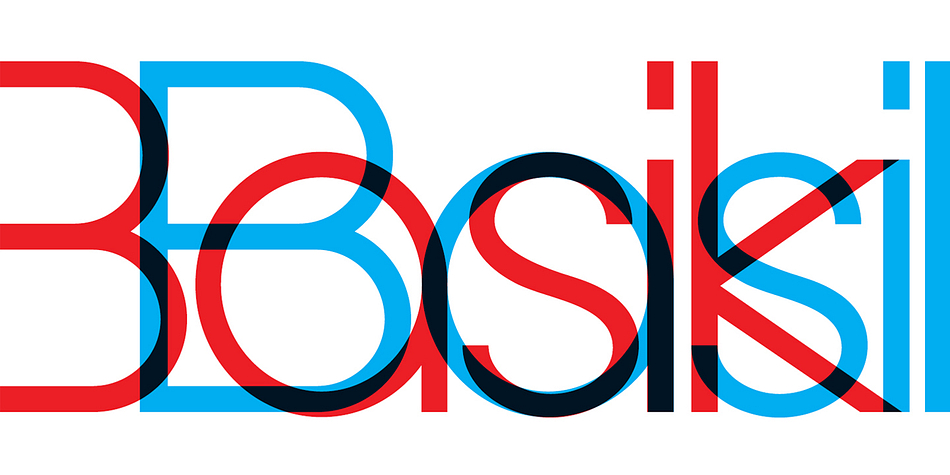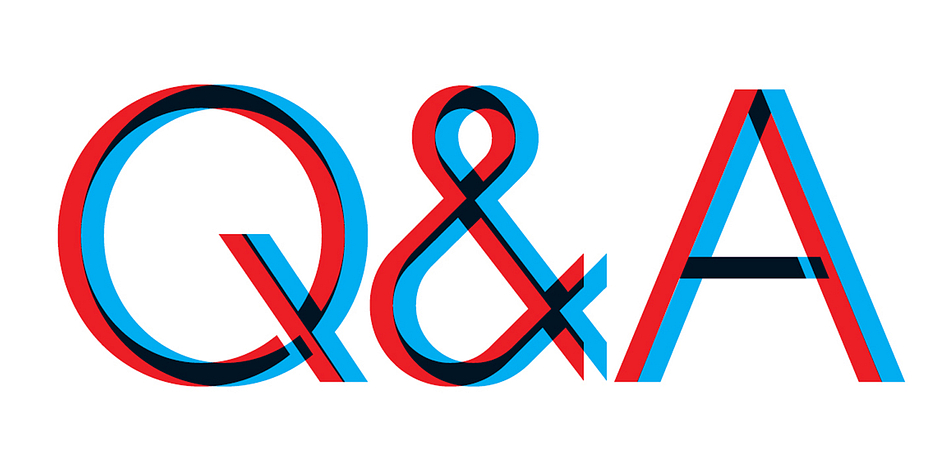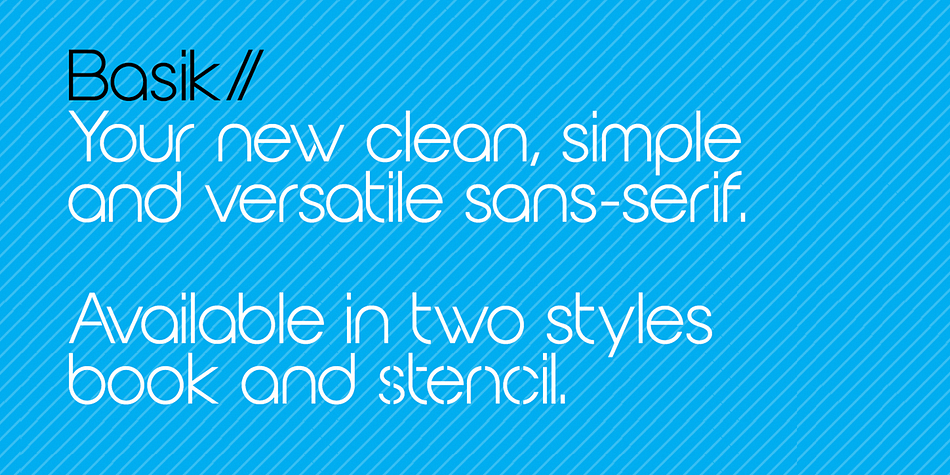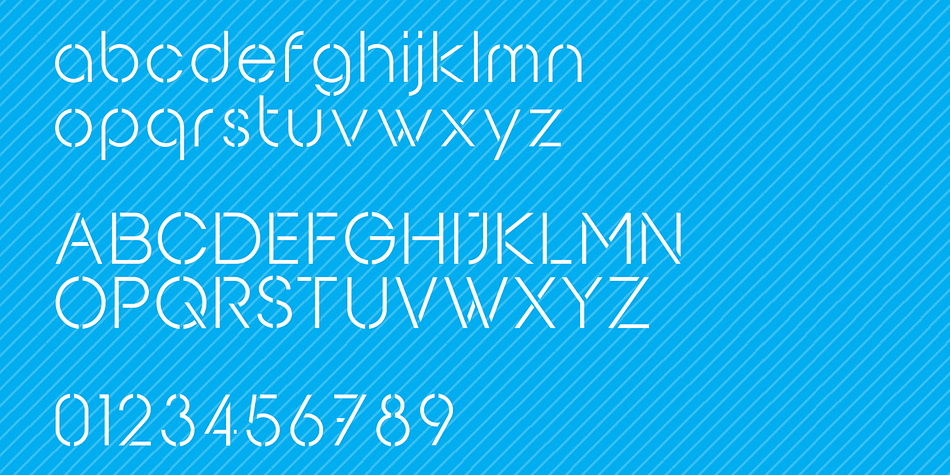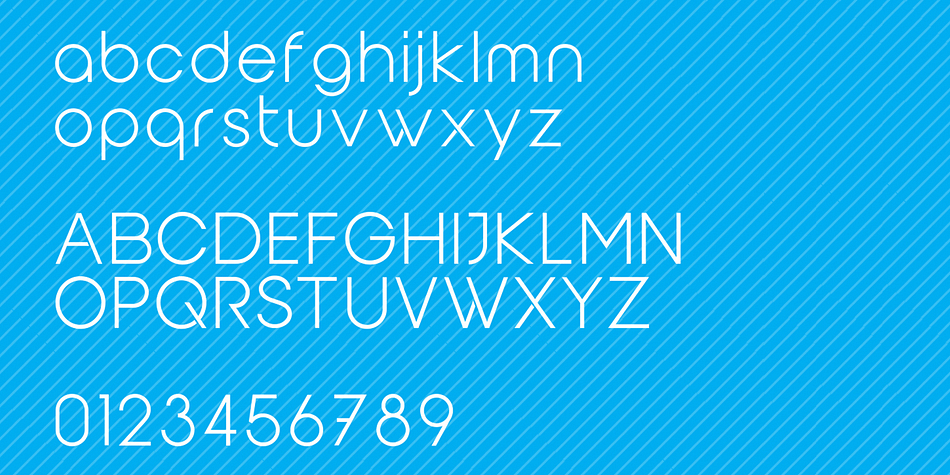
Basik is a sans serif and stencil font family. This typeface has two styles and was published by Superfried.
As the name suggests, Basik is a simple, clean and versatile sans-serif typeface designed by Superfried. It is equally apt in both body & display scenarios. There are already numerous san-serif fonts available which is why we have tried to create some unique styles and cuts throughout the typeface. Basik has been featured on the Behance curated typography gallery TypographyServed.com. It is available in two styles, book and stencil.